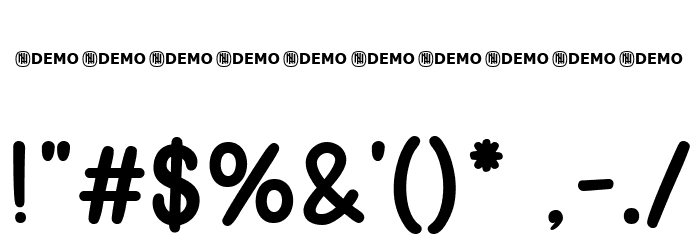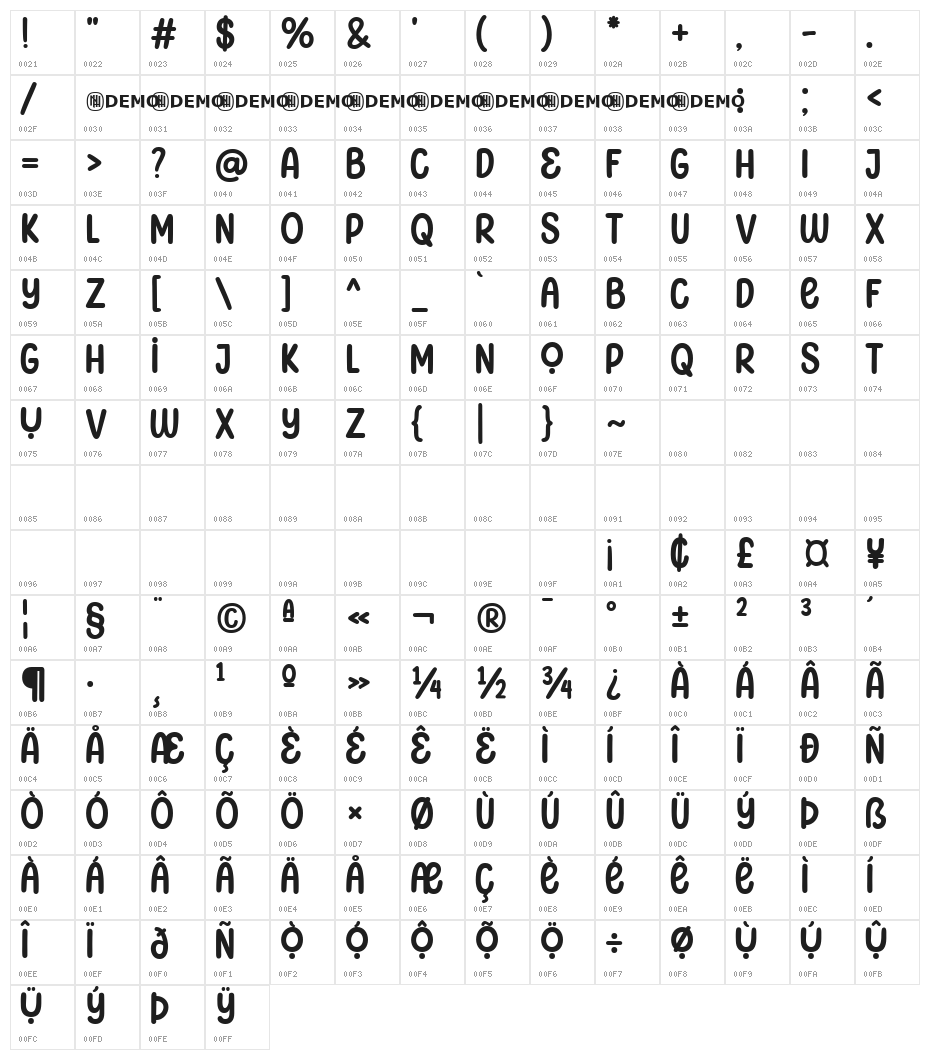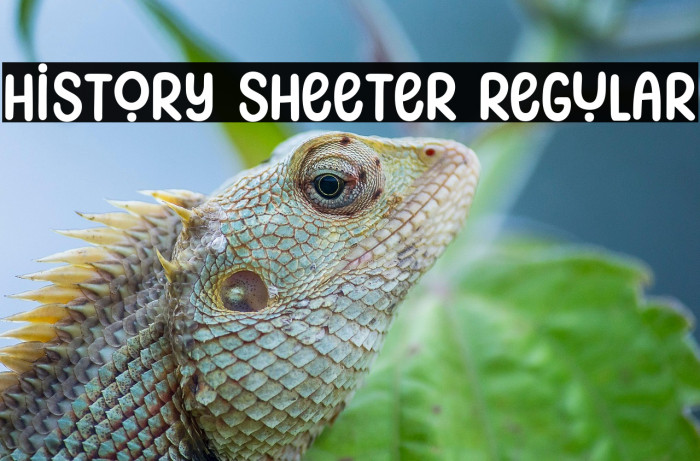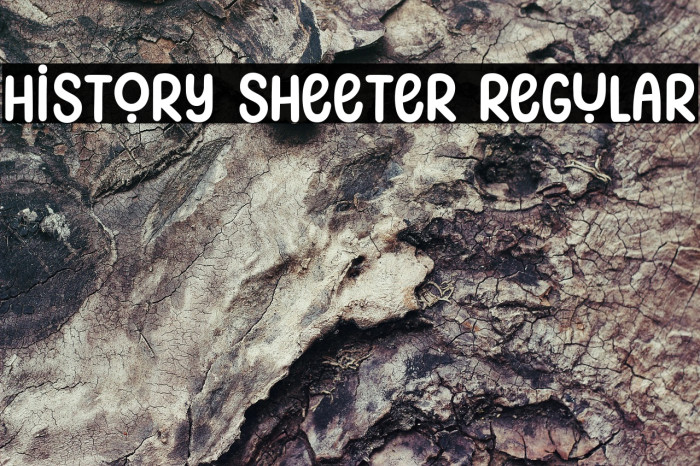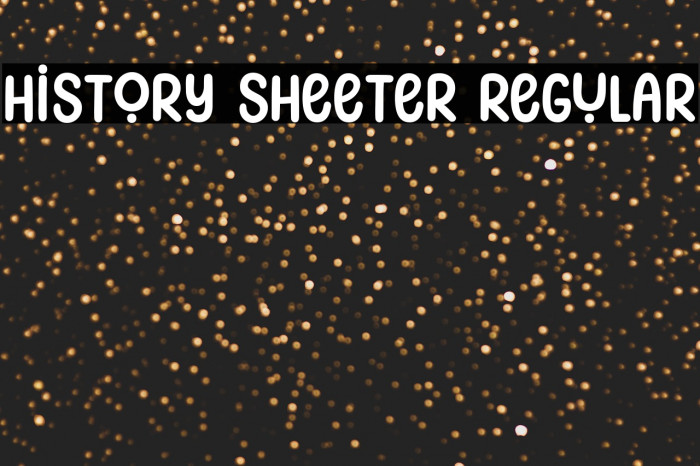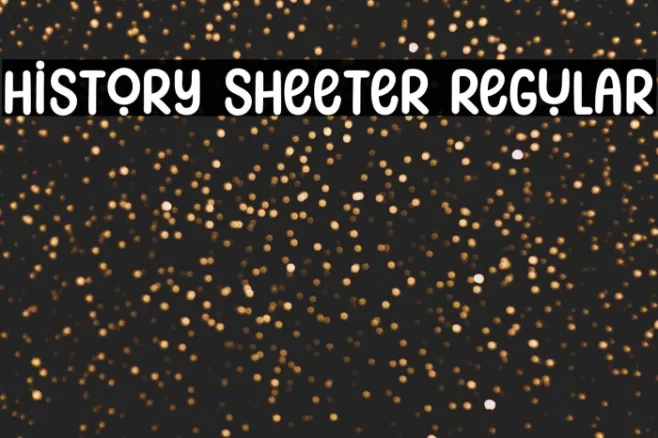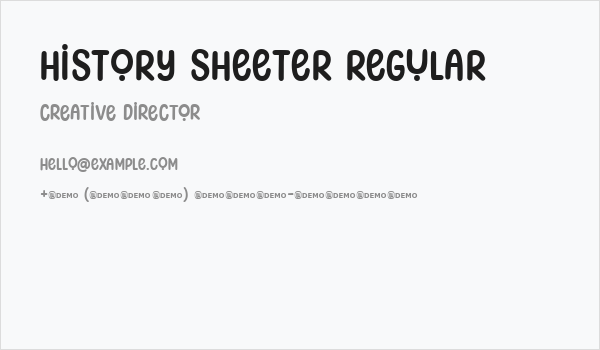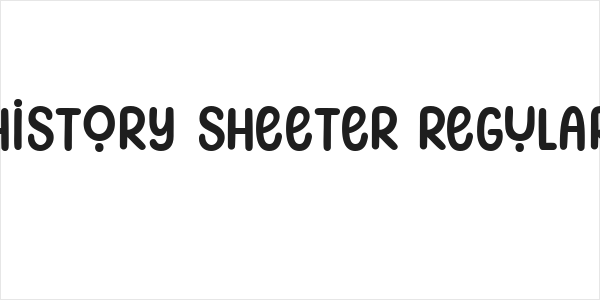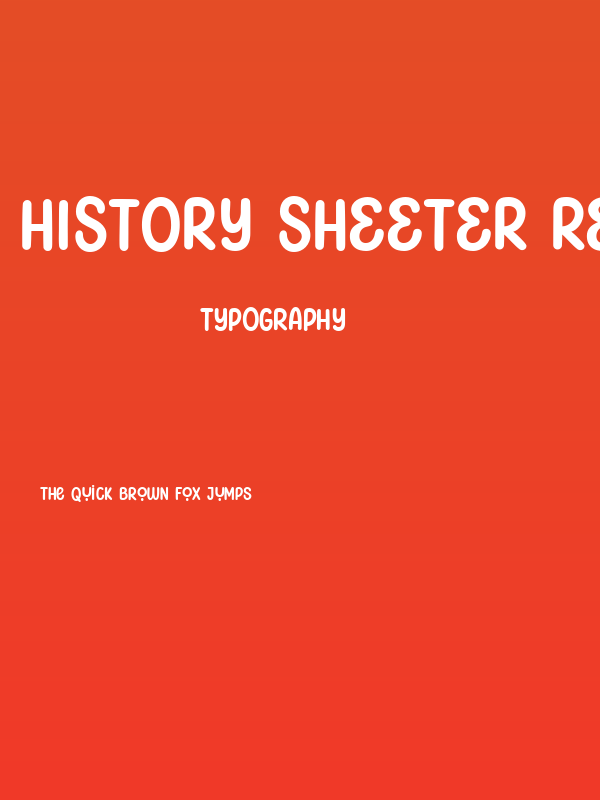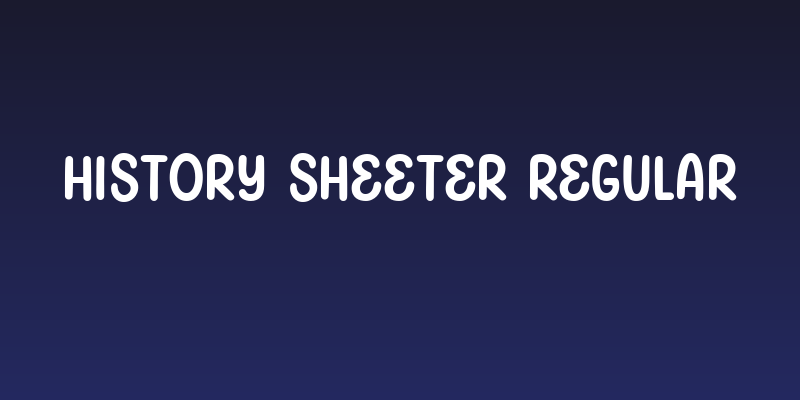
History Sheeter Regular Font
History Sheeter Regular Description
This font features a playful and rounded style, characterized by its bold and smooth curves. The letters have a consistent thickness, giving it a uniform appearance. The rounded edges and slightly whimsical design make it approachable and friendly. It includes both uppercase and lowercase letters, as well as numbers and a variety of special characters. The overall look is modern and slightly retro, making it suitable for projects that require a touch of fun and creativity. The font's design is clean and legible, ensuring readability while maintaining its unique style.
| Overall Style | Modern, Retro |
| Proposed Projects | Ideal for children's books, playful branding, posters, and creative digital content. |